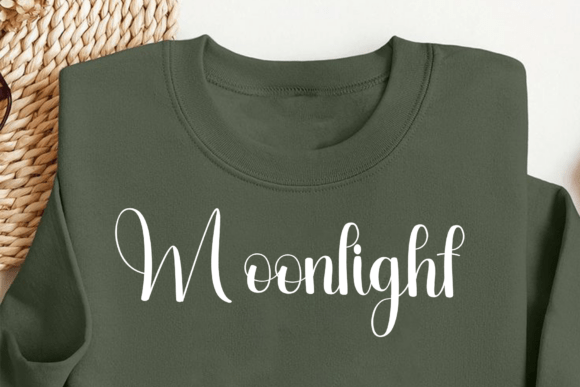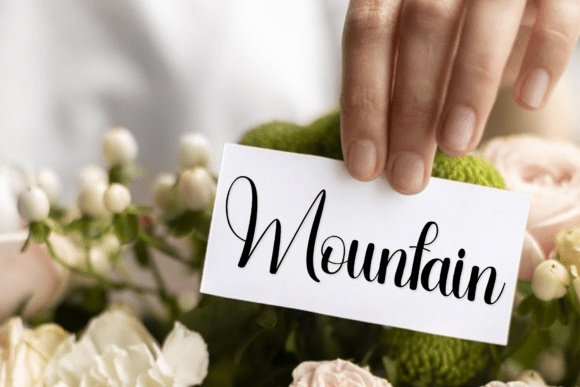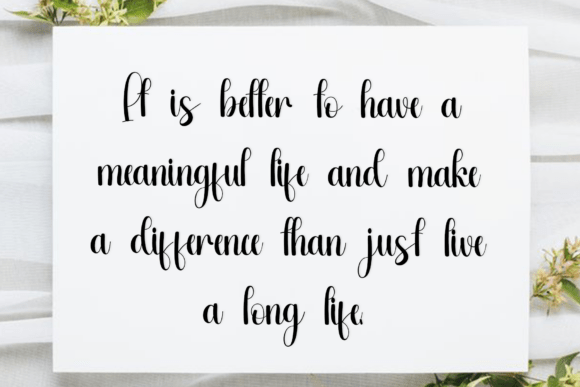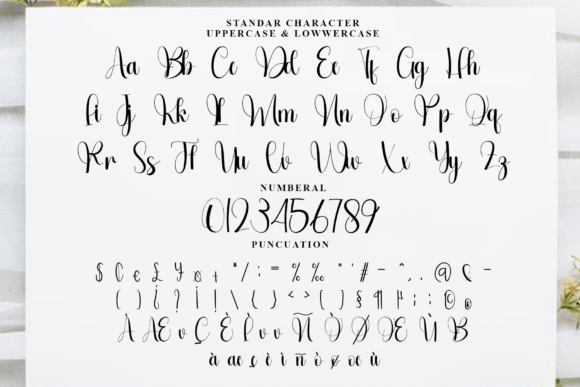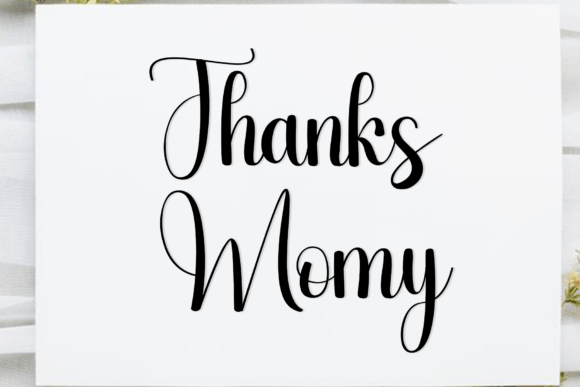
A Breath of Fresh Air: Discovering the Perfect Font for Outdoor Enthusiasts
As a designer, I still remember the thrill of stumbling upon the perfect font for a project. It’s like finding a hidden trail on a crisp mountain morning – everything falls into place, and the creative possibilities seem endless. For me, that font was the Hunting Ringlighty Font, a game-changer that brought a sense of clarity and elegance to my designs.
Designed to evoke the feeling of a mountain breeze, Hunting Ringlighty Font is a professional and unique addition to any modern handwritten collection. Its tall, thin strokes and subtle slant create a refined aesthetic that’s perfect for travel photography, outdoor gear branding, and sophisticated web design.
For designers, the Hunting Ringlighty Font is a valuable asset, offering a clean and approachable style that’s both versatile and timeless. Whether you’re working on a project that requires a sense of adventure or sophistication, this font is sure to inspire your creativity and leave a lasting impression.
- Unique Characteristics: Unique blend of traditional and modern design elements, with intricate details and ornate flourishes
- Font Style: Script, Handwritten, Ornamental
Overall, I think Hunting Ringlighty Font is an interesting choice for designers looking for a unique, eye-catching font.
- Uniqueness: This font stands out from the crowd with its unusual design and quirky feel.
- Variety of weights: The font family includes a range of weights and styles, making it versatile for different design applications.
- High-quality glyphs: The font’s glyphs are well-designed and consistent, making it suitable for both print and digital use.
- Readability: While the font is visually striking, it may be difficult to read, especially in smaller sizes or for prolonged periods.
- Limited legibility: The font’s unique design may not be suitable for body text or long passages, where legibility is crucial.
- Not suitable for all audiences: The font’s quirky feel may not appeal to everyone, and some users may find it distracting or difficult to read.
I would recommend Hunting Ringlighty Font for designers looking for a bold, eye-catching font for headlines, titles, or other decorative elements. However, it may not be the best choice for body text or applications where readability is crucial.
The Hunting Ringlighty Font is ideal for:
1. Creating bold and eye-catching headlines.
2. Adding a unique touch to your branding materials.
3. Making a statement in your marketing materials.
Alternatives to Hunting Ringlighty Font
1. Lobster
Lobster is a script font with a casual, cursive feel. It’s ideal for use in titles, headings, and other design elements where a touch of elegance is needed. Compared to Hunting Ringlighty Font, Lobster has a more refined and sophisticated look, making it suitable for high-end branding and design projects.
Pacifico is a modern script font with a relaxed, beachy vibe. It’s perfect for use in design projects that require a laid-back, casual feel. Compared to Hunting Ringlighty Font, Pacifico has a more open and airy look, making it suitable for designs that need to convey a sense of freedom and spontaneity.
Great Vibes is a elegant script font with a touch of sophistication. It’s ideal for use in design projects that require a high level of professionalism and refinement. Compared to Hunting Ringlighty Font, Great Vibes has a more refined and polished look, making it suitable for use in corporate branding, business cards, and other formal design elements.
Carolyna Pro is a modern script font with a sleek, sophisticated look. It’s perfect for use in design projects that require a high level of elegance and refinement. Compared to Hunting Ringlighty Font, Carolyna Pro has a more streamlined and modern look, making it suitable for use in high-end